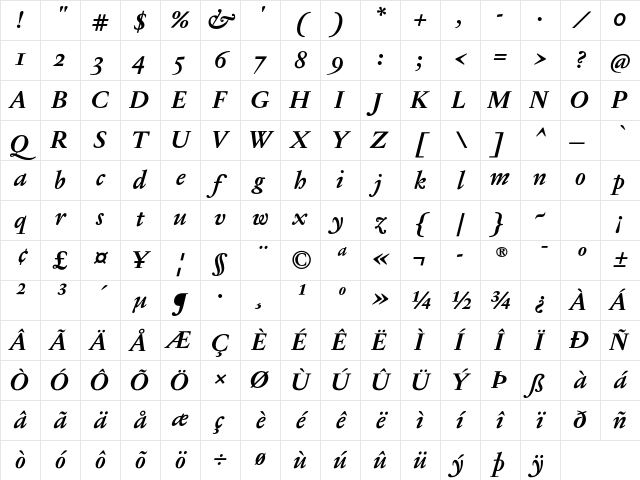
Jannon T Moderne OT Bold Italic
Foundry: Frantisek Storm
Designer: Frantisek Storm
Design Context for Jannon T Moderne OT
Jannon T Moderne OT is a composed and adaptable typeface that performs quietly and consistently across a wide range of design contexts. The slanted form adds forward momentum and visual energy. Its bold stroke weight gives it real presence on the page.
Pro Tip: Use Jannon T Moderne OT for emphasis, pull quotes, and subheadings where its slanted energy can add rhythm to the layout.
Who designed the Jannon T Moderne OT Bold Italic font?